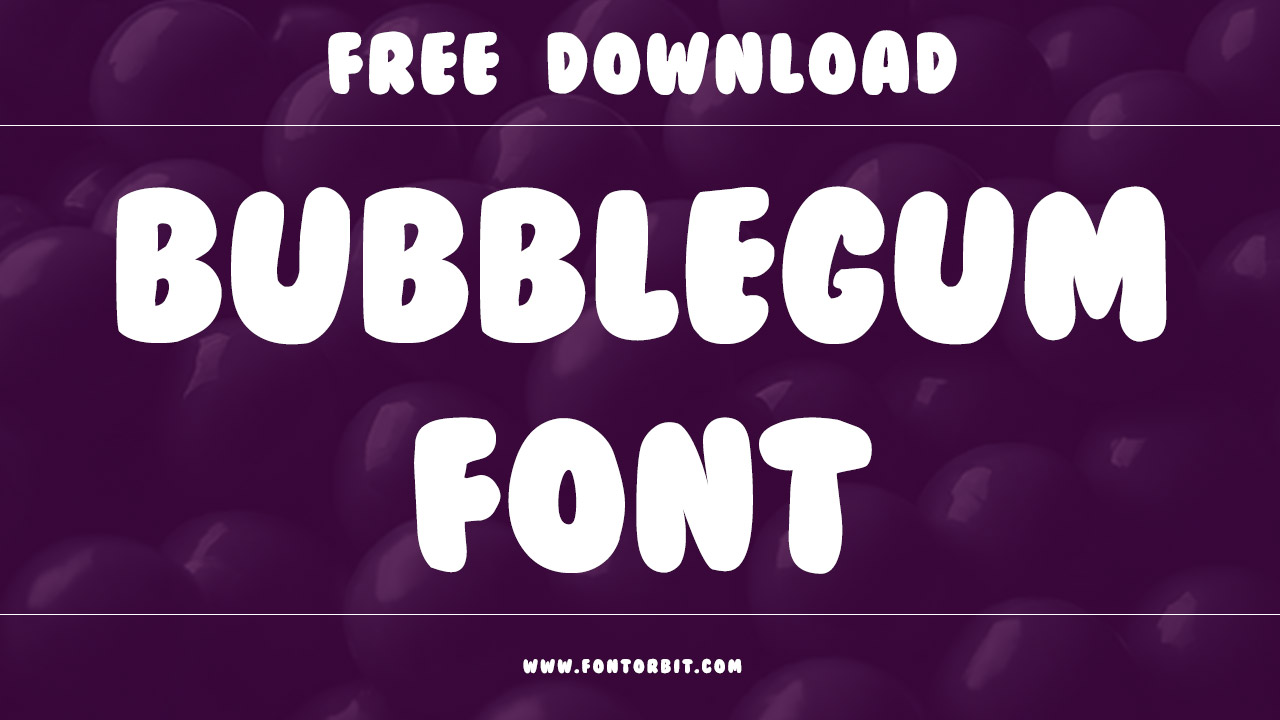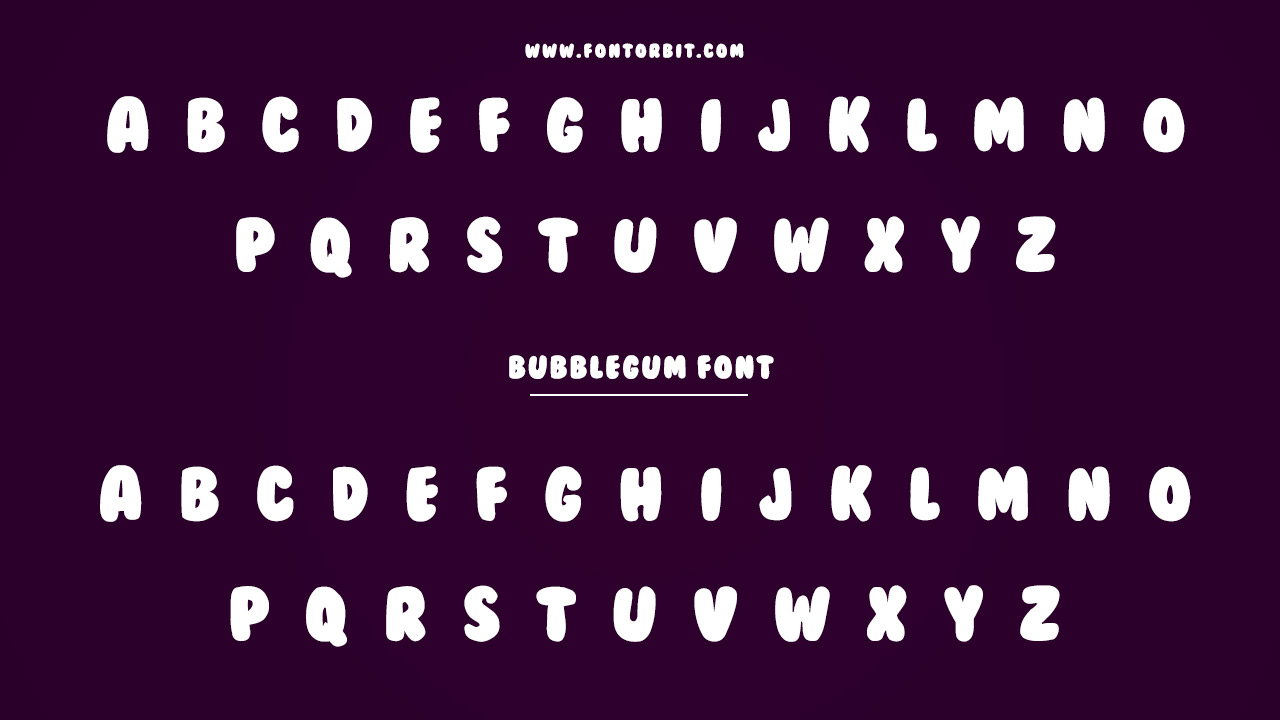
BubbleGum Font by Thomas W. Ziller is a fun and playful typeface inspired by cartoon aesthetics. Its rounded and smooth design makes it ideal for lighthearted and creative projects, offering a cheerful vibe perfect for various design applications.
BubbleGum Font is a Fancy typeface known for its bubbly, soft, and smooth curves. It adds a lively touch to text, making it a favorite for projects that need a quirky and playful appeal.
BubbleGum Font is perfect for designs aiming to convey fun, creativity, and whimsy. Its versatility makes it suitable for:
- Children’s book covers
- Cartoon logos
- Posters for kids’ events
- Candy or food packaging
- Social media graphics
- Fun apparel designs
- Greeting cards and invitations
The BubbleGum Font Found In Use
BubbleGum Font is a lively and playful typeface perfect for fun and engaging designs. Whether for posters, packaging, or social media, this font adds a cheerful and cartoonish vibe to any project. Its charming aesthetic makes it a favorite for kid-focused and creative works.
1.What Are The Defining Characteristics Of The Bubblegum Font?
BubbleGum Font is known for its smooth, rounded edges and bubbly appearance, perfect for playful, cartoonish, and creative designs. Its unique features give off a lively and informal vibe, ideal for kid-focused branding and colorful projects like posters, logos, and candy packaging.
2.How Does Bubblegum Font Compare To Other Fancy Fonts?
Unlike other Fancy fonts that may feature intricate details or stylized features, BubbleGum Font stands out with its clean, rounded, and soft design. It closely resembles the texture of bubble gum, giving it a lighthearted charm suitable for retro or kids-themed designs.
3.What Are The Best Uses For Bubblegum Font In Design?
This font is ideal for creating eye-catching posters, playful logos, retro-style printed materials, and kid-friendly packaging. It works well for products like candy or chewing gum and in applications like cartoon text overlays, colorful svg format designs, or vibrant png format graphics.
4.What Should I Consider Before Using Bubblegum Font In Branding?
Ensure your branding aligns with its playful and fun aesthetic. BubbleGum Font suits kids’ products, cartoon designs, or whimsical campaigns. It might not be suitable for formal or professional themes due to its casual, cartoonish tone.
5.What Limitations Should Designers Keep In Mind When Using Bubblegum Font?
While BubbleGum Font excels in playful and colorful contexts, it may not fit serious, elegant, or formal branding projects. Its design is tailored for creative or retro themes, which may clash with clean, minimalist designs or modern fonts used in corporate settings.
6.Are There Similar Fonts To Bubblegum Font?
For alternatives, you can explore typewriter fonts, graffiti fonts, or script fonts with a fun and playful touch. Examples include Bubblegum Sans, Jellyka, and other popular handwriting fonts. These fonts capture a similar bubbly or creative vibe while offering subtle variations.
7.What Do Users Typically Look For In A Font Like Bubblegum?
Users choose BubbleGum Font for its cheerful and cartoon-inspired style. It’s sought after for creating designs that stand out in vintage fonts, retro fonts, or designs involving bright colors. Projects involving kids, candy-related themes, and cartoon elements benefit most from its unique look.